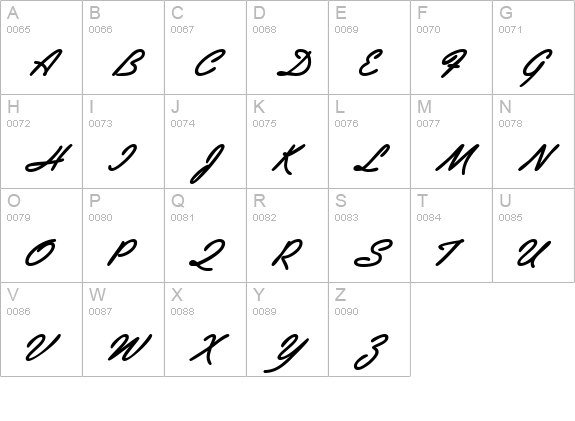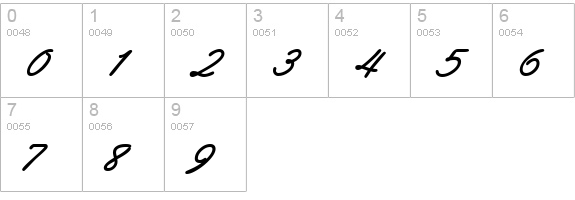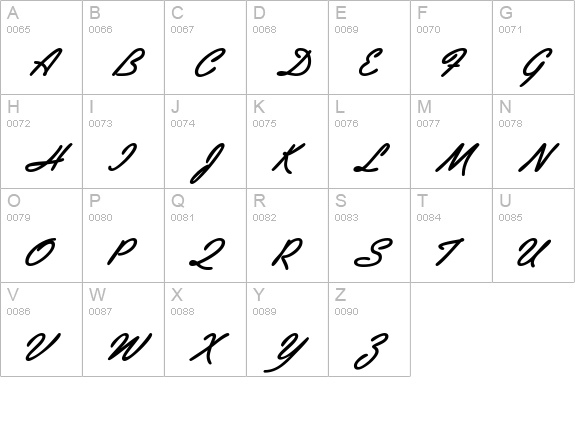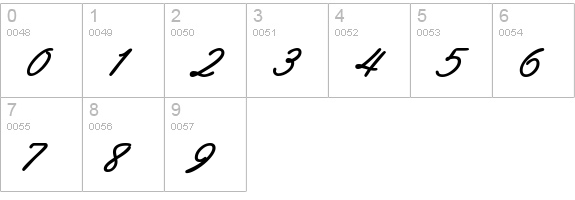
AbrazoScriptSSK BoldItalic Font Details
AbrazoScriptSSK BoldItalic is a stunning and elegant font that combines boldness with a touch of sophistication. Its italicized style adds a dynamic flair to any design, making it perfect for projects that require a sense of luxury and glamour. The flowing curves and unique serifs of this font make it stand out and grab attention. This font is not only visually appealing but also versatile, suitable for a wide range of design purposes including logos, headlines, invitations, and more. Its bold yet graceful appearance makes it a great choice for adding a touch of class to any project. Best of all, AbrazoScriptSSK BoldItalic is available for free download at FontsMarket.com. So, whether you're a professional designer or a hobbyist looking to elevate your projects, this font is a must-have in your collection. Download it today and add a touch of elegance to your designs with AbrazoScriptSSK BoldItalic.